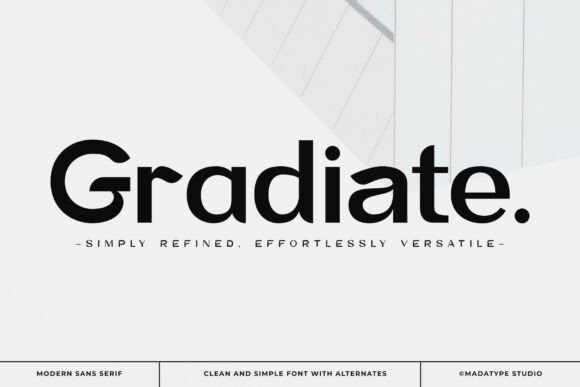
Gradiate Font
Designer: Madatype Studio
Gradiate Font is a sleek, stylish sans-serif font designed with clean lines and perfectly smooth shapes. To elevate your typography, it features a curated set of stylistic alternates, allowing you to instantly transform standard layouts into unique custom lettering. Effortlessly versatile, Gradiate is the perfect choice for logos, modern branding, editorial projects, and everyday design needs.